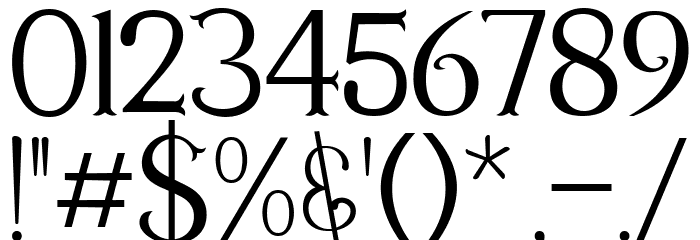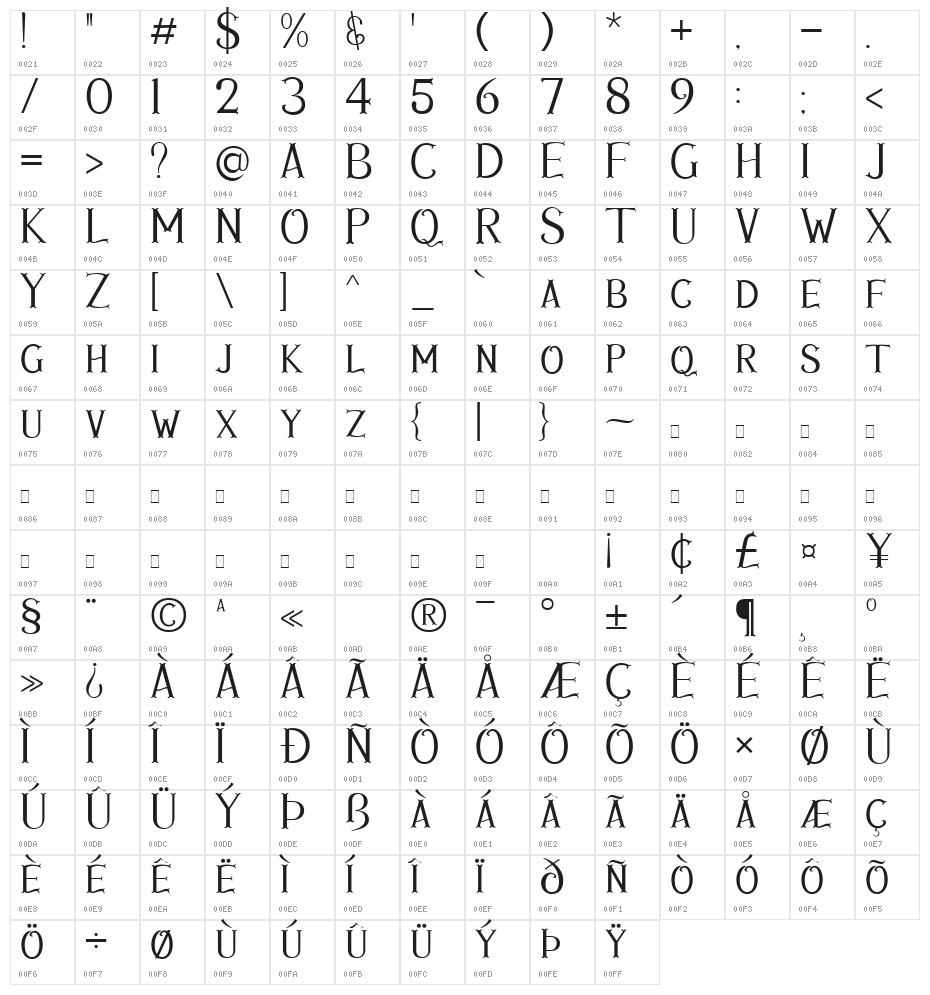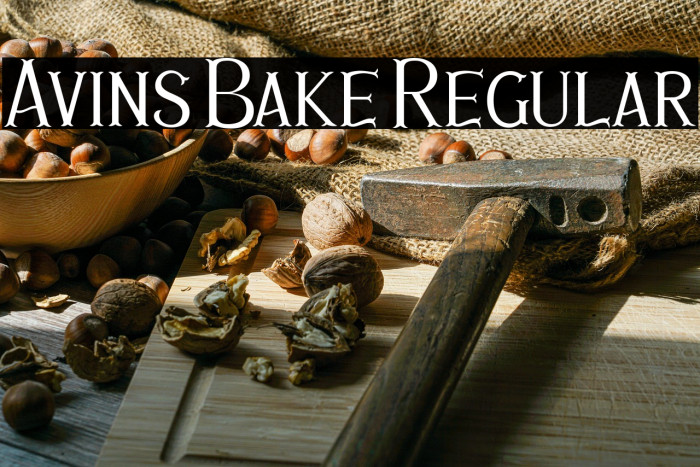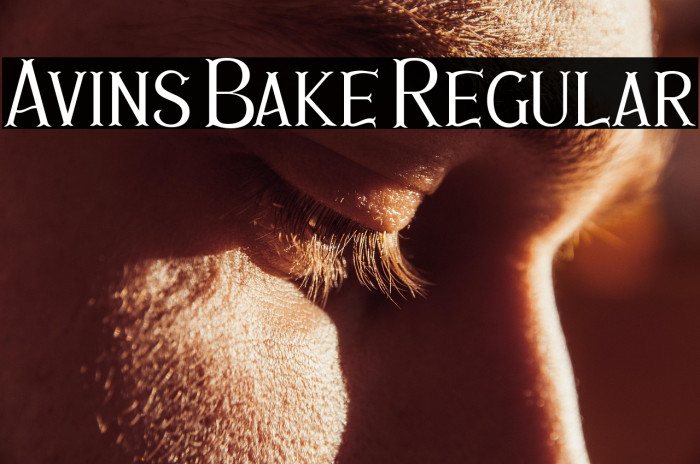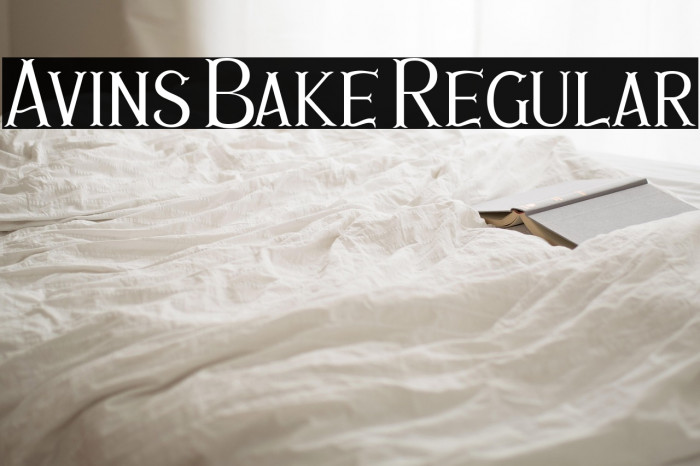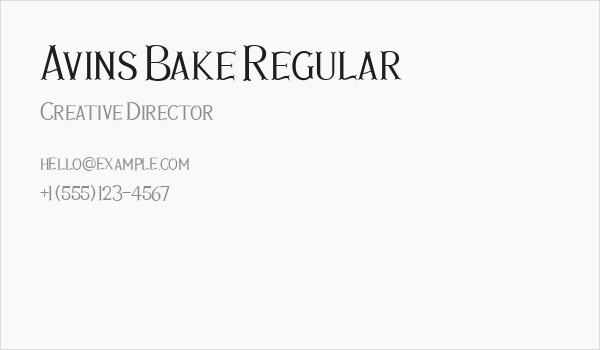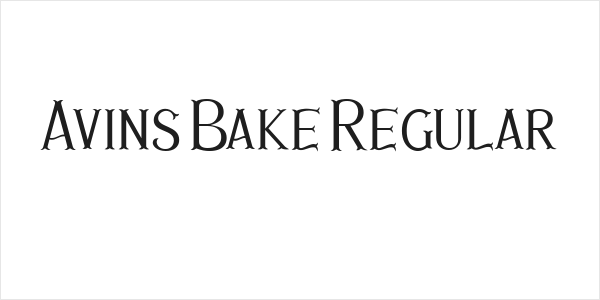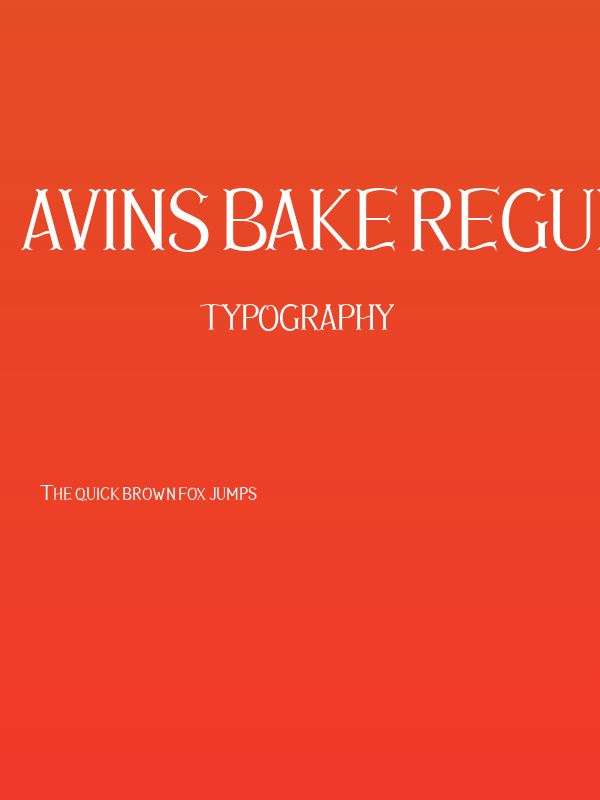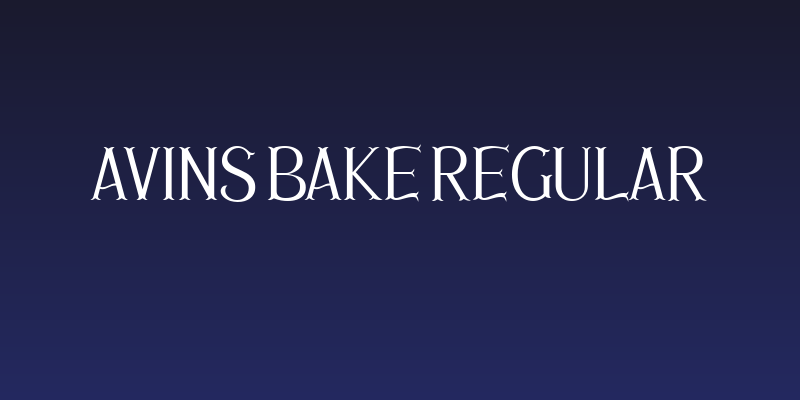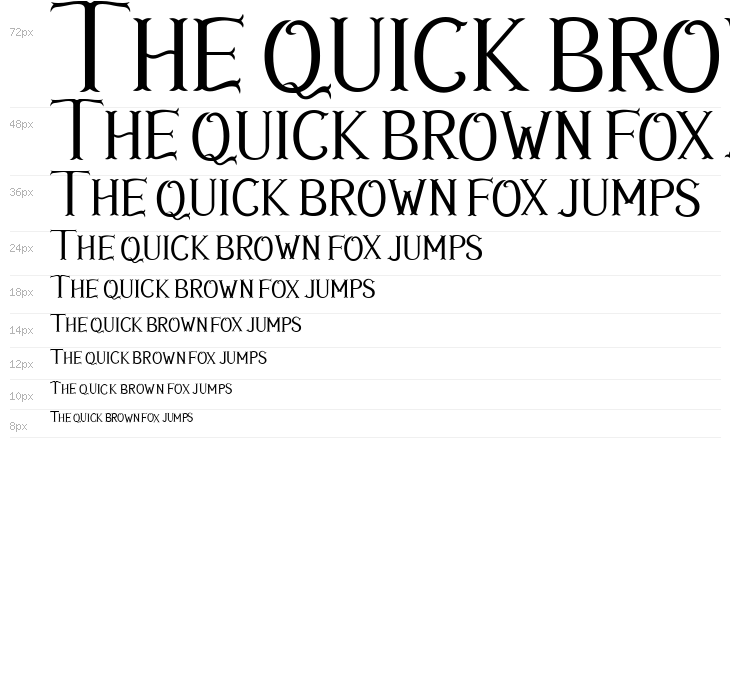
Avins Bake Regular Font
Avins Bake Regular Description
This font features a unique blend of classic and modern elements, characterized by its sharp serifs and elegant curves. The uppercase letters exhibit a distinct flair with pointed edges, while the lowercase letters maintain a consistent flow, enhancing readability. The numerals are bold and slightly condensed, offering a strong presence. Special characters are crafted with attention to detail, adding to the font's versatility. Overall, this typeface exudes sophistication and is suitable for a variety of design applications.